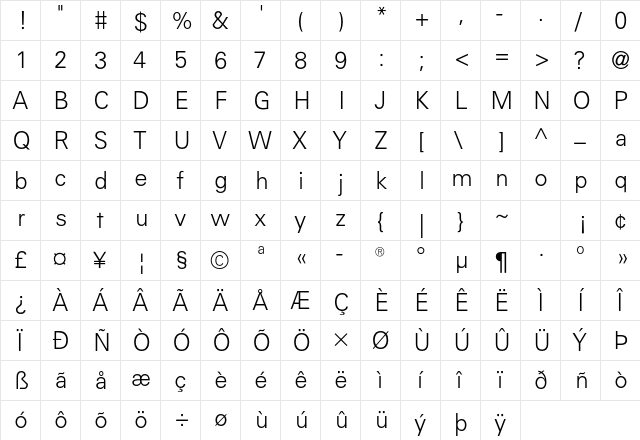
Gen Light
| Foundry | Hanken Design Co. |
| Designer | Alfredo Marco Pradil |
Design Context for Gen Typeface
Gen offers clean, dependable letterforms without strong stylistic allegiance, making it a practical choice for designers who need flexibility. Its slender proportions lend an understated elegance to any composition.
Pro Tip: Pair Gen with a font of contrasting weight or personality to build a more expressive typographic hierarchy.